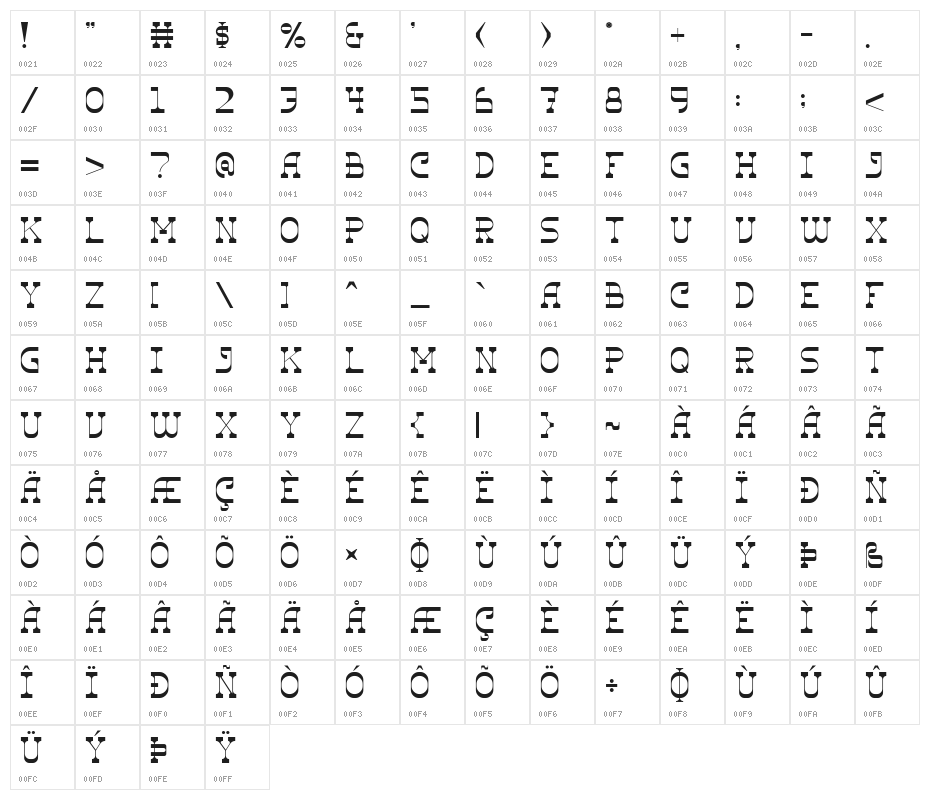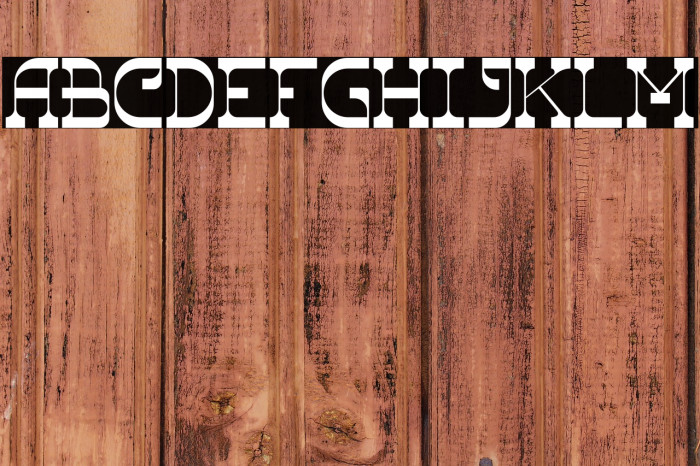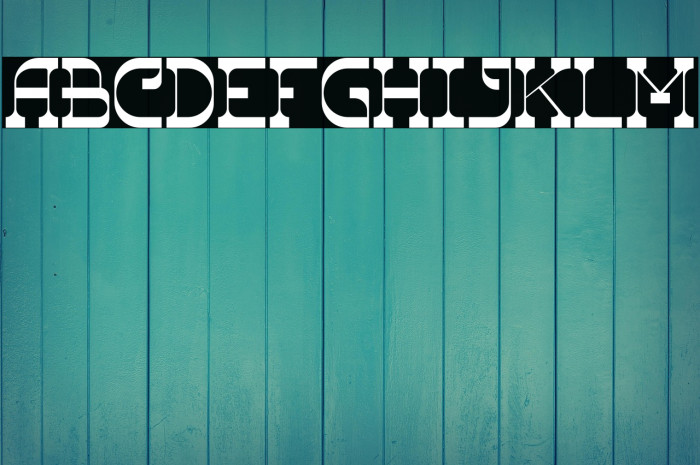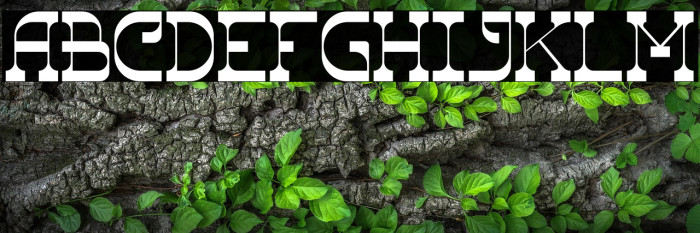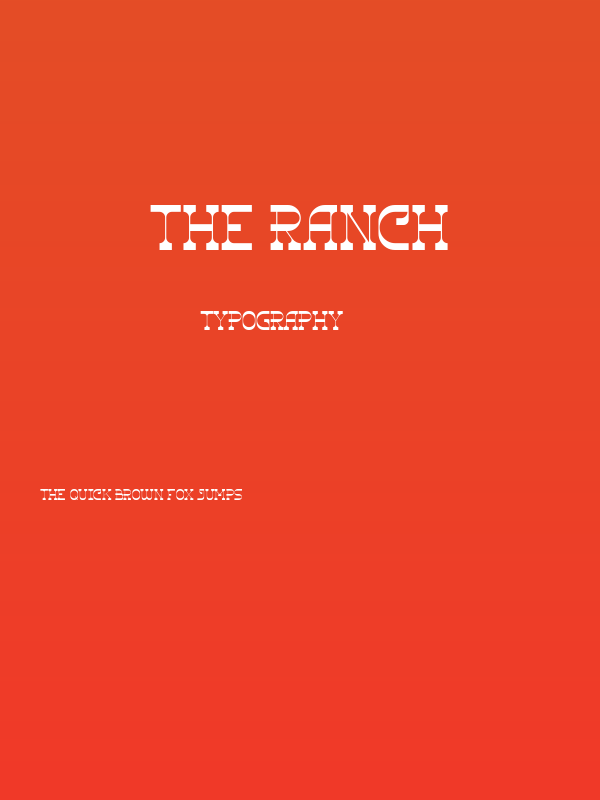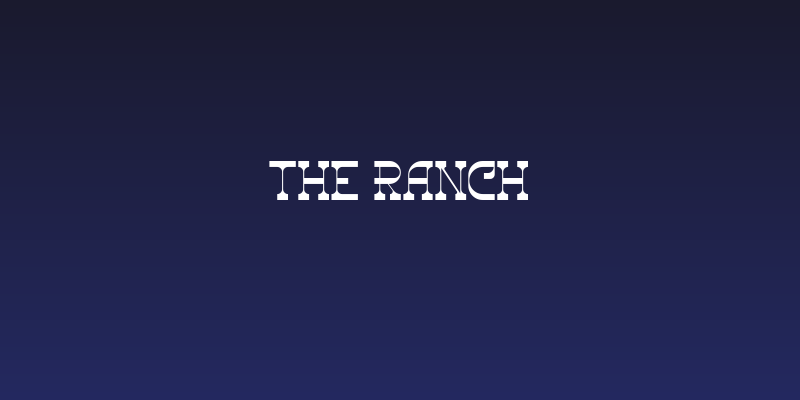
The Ranch Font
This font features a bold and striking design with a distinctly modern and geometric aesthetic. The characters are constructed with thick, uniform strokes and sharp angles, creating a sense of strength and stability. The uppercase letters are particularly prominent, with a unique blend of curves and straight lines that give them a futuristic feel. The numerals and special characters maintain this cohesive style, ensuring versatility across various applications. The font's boldness and clarity make it ideal for attention-grabbing headlines and impactful logos.
| Proposed Projects | Ideal for branding, advertising, posters, and any project requiring a strong visual impact. |